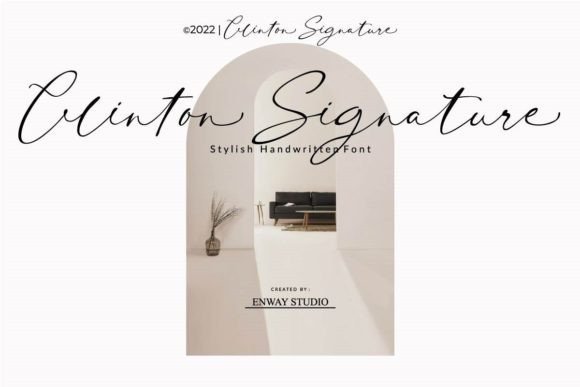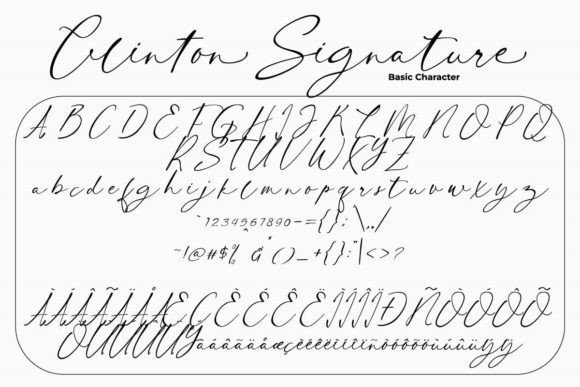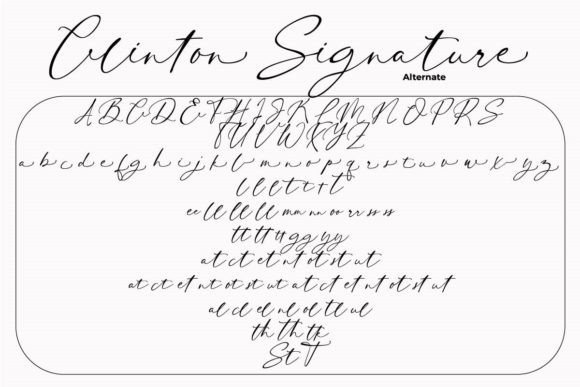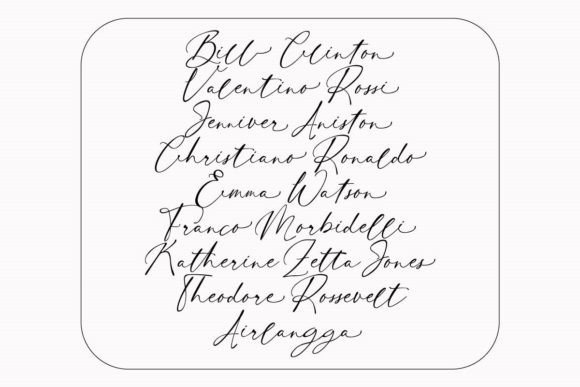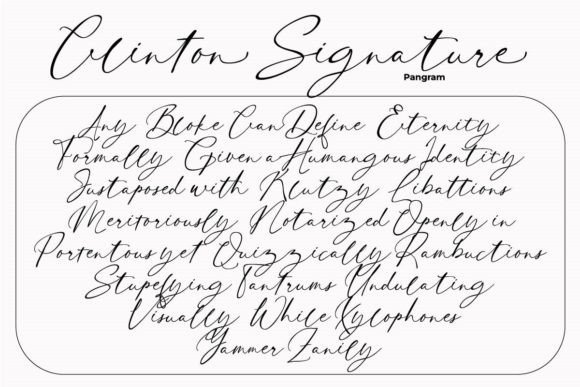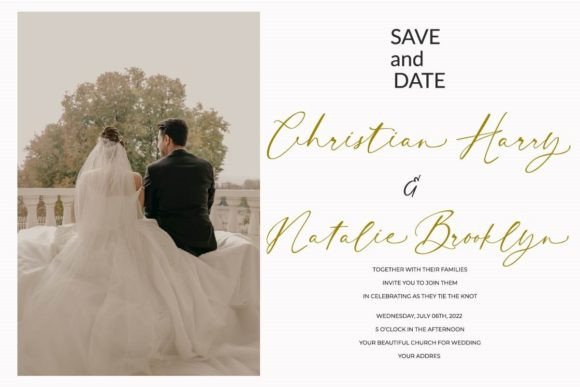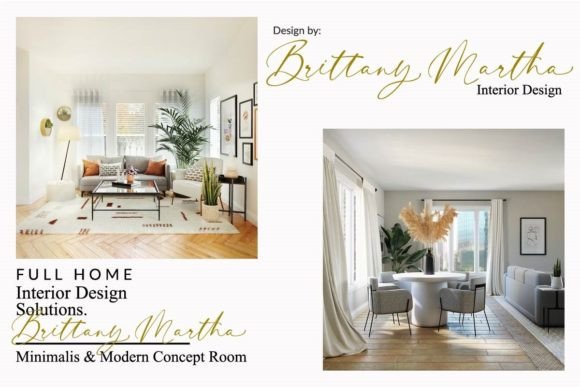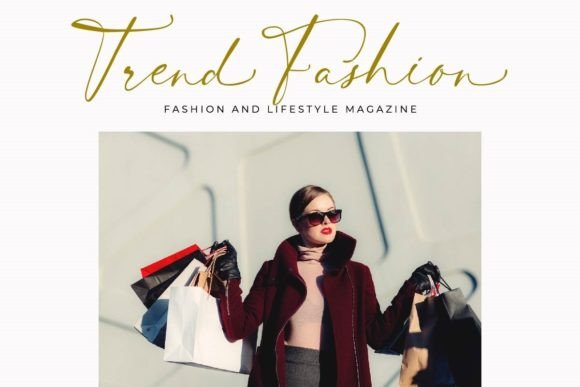
Clinton Signature Font
Refined Signature Typeface for Elegant Branding and Design
If you’re looking to bring grace and sophistication to your design work, the refined signature typeface Clinton Signature is an excellent choice. With its delicate curves and elegant structure, this font instantly elevates your creative projects while maintaining clarity and usability.
Whether you’re crafting invitations or developing a premium brand, Clinton Signature helps your message shine with polished charm.
Introducing Clinton Signature: Stylish, Soft, and Elegant
Clinton Signature was thoughtfully designed to combine the fluidity of handwritten script with the structure of a modern typeface. Each letter flows naturally, creating a rhythm that feels both professional and artistic.
This refined signature typeface is ideal for:
• Wedding invitations and event signage
• Fashion and lifestyle brand logos
• Elegant social media templates
• Product packaging and boutique labels
• Digital prints and downloadables
Its timeless aesthetic and gentle form make it versatile for both formal and personal design settings.
Moreover, Clinton Signature is PUA encoded, which allows you to easily access all alternate characters, ligatures, and swashes without needing advanced software. This means even beginner-level users can unlock its full potential with ease.
Why Choose Clinton Signature?
Many fonts attempt elegance, but few deliver it with the precision and beauty that Clinton Signature does. Here’s what makes it special:
• Smooth, flowing script style with clean strokes
• Elegant but readable across all sizes
• PUA encoded for complete glyph access
• Perfect for print and digital use
This refined signature typeface is especially popular among designers working in fashion, events, and luxury branding — thanks to its upscale vibe and artistic balance.
Great for Branding, Weddings & Creative Professionals
Clinton Signature is a go-to font for projects that require a personal yet polished feel. It’s particularly effective for:
• Branding kits and business card layouts
• Signature watermarks for photographers
• Wedding logo monograms and stationery sets
• Downloadable templates and digital invitations
• Journals, planners, and printable quote art
Because of its style and flexibility, it’s a must-have for creatives looking to build memorable, high-end visuals.
Clinton Signature combines softness and structure in a way that feels truly refined. As a refined signature typeface, it’s perfect for conveying class, creativity, and modern sophistication across all forms of design.